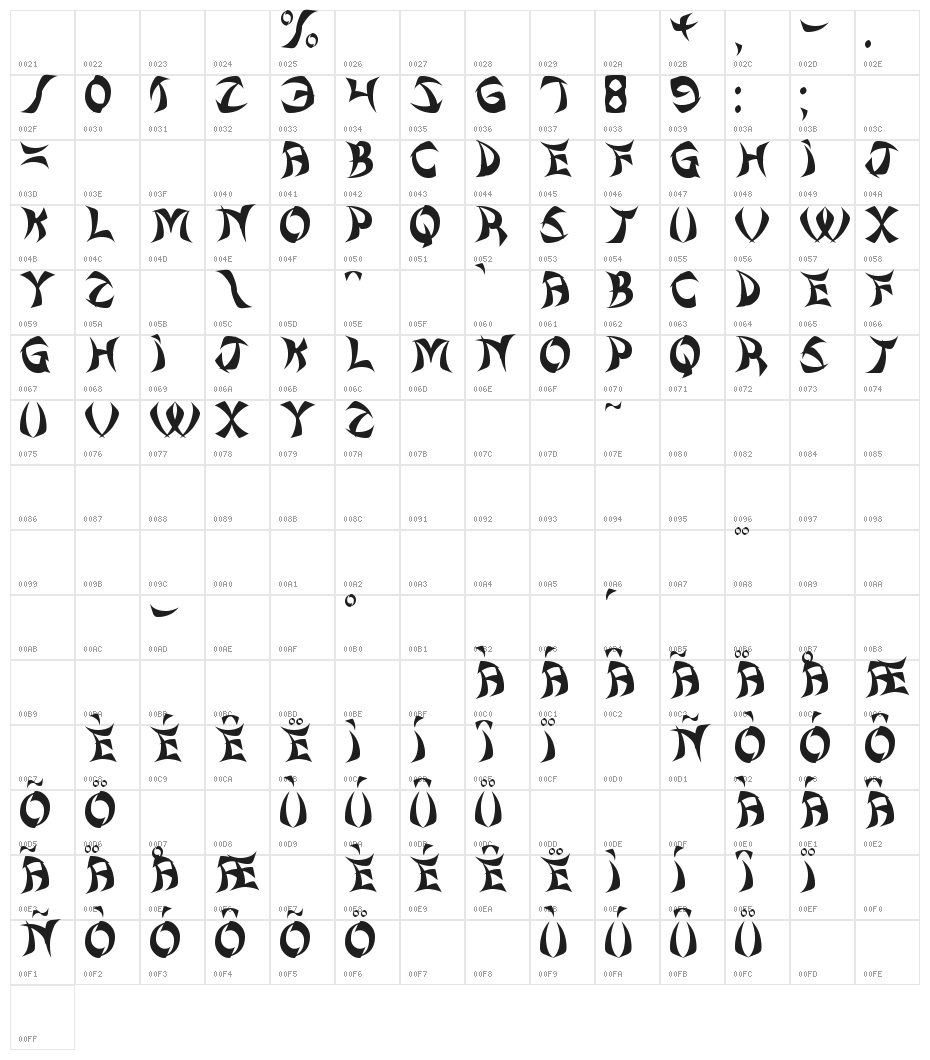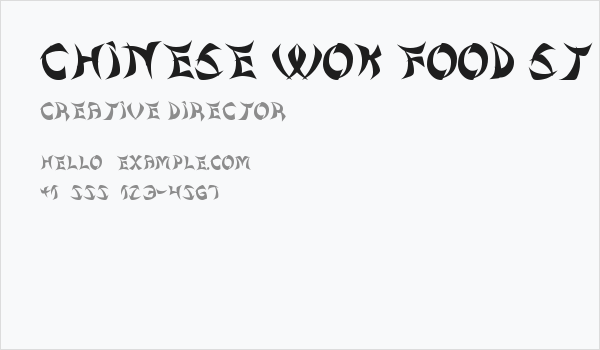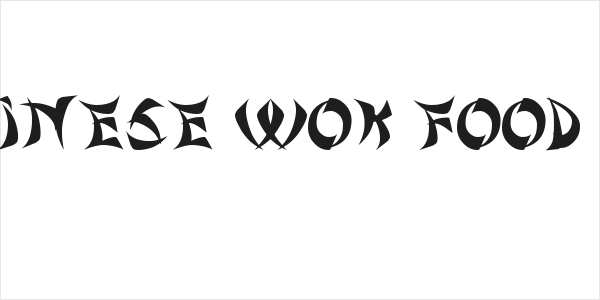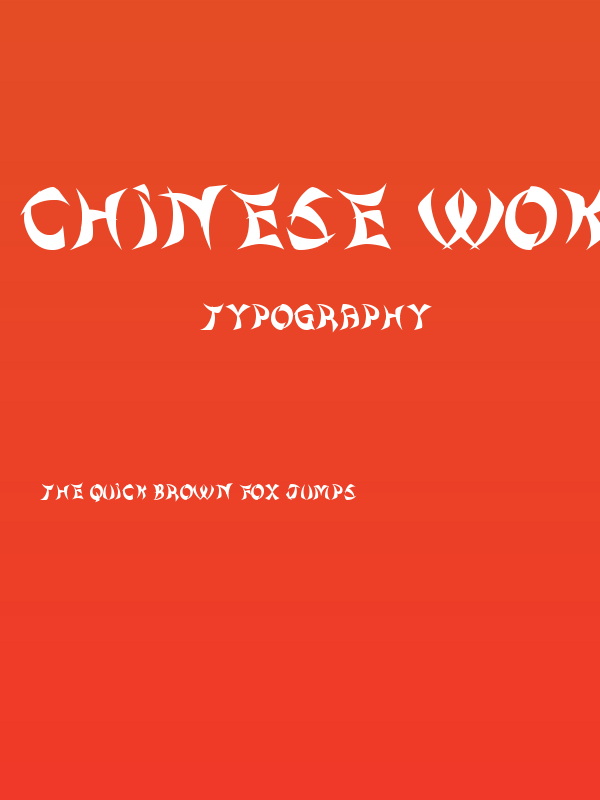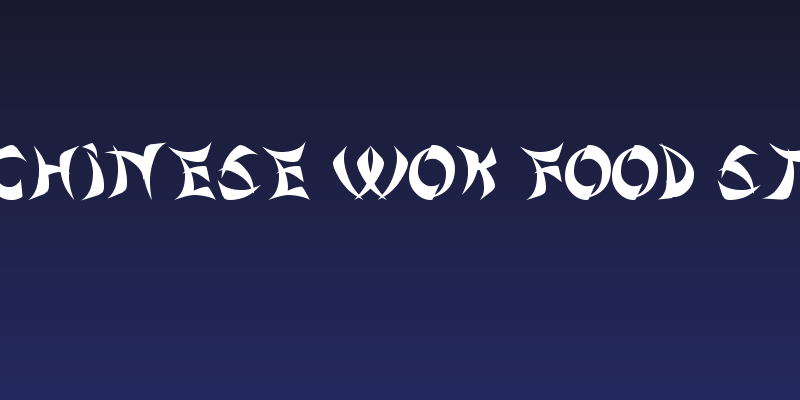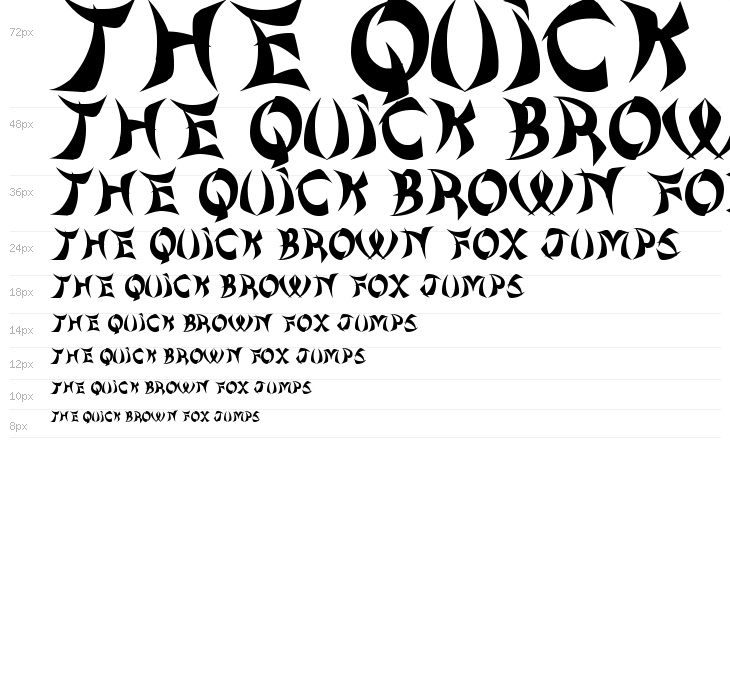
Chinese Wok Food St Font
Chinese Wok Food St Description
This font features a bold and dynamic style with sharp, angular edges and a distinct flair reminiscent of traditional Asian calligraphy. The characters are designed with high contrast, showcasing thick strokes that taper into fine points, creating a sense of movement and energy. The uppercase and lowercase letters maintain a consistent style, with unique curves and angles that give the font a decorative and exotic appearance. The numerals and special characters follow the same design principles, ensuring a cohesive look across all glyphs. This font is ideal for projects that require a bold and eye-catching aesthetic.